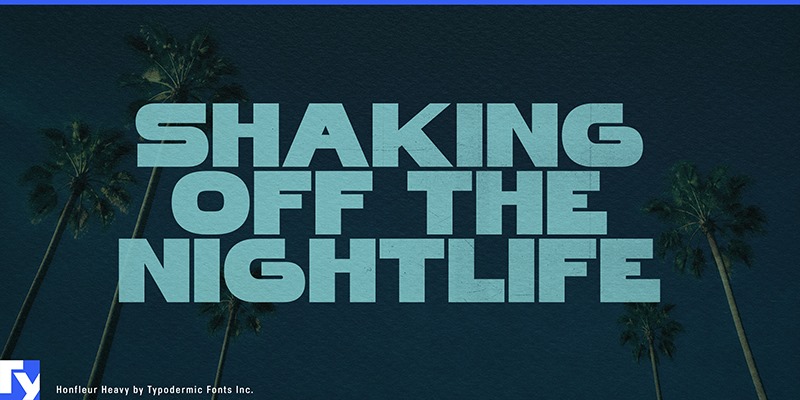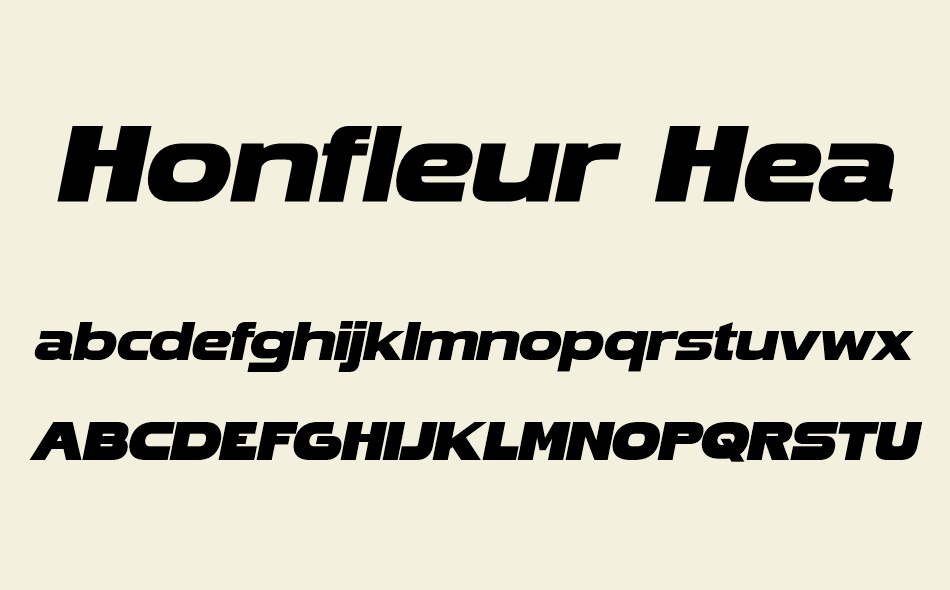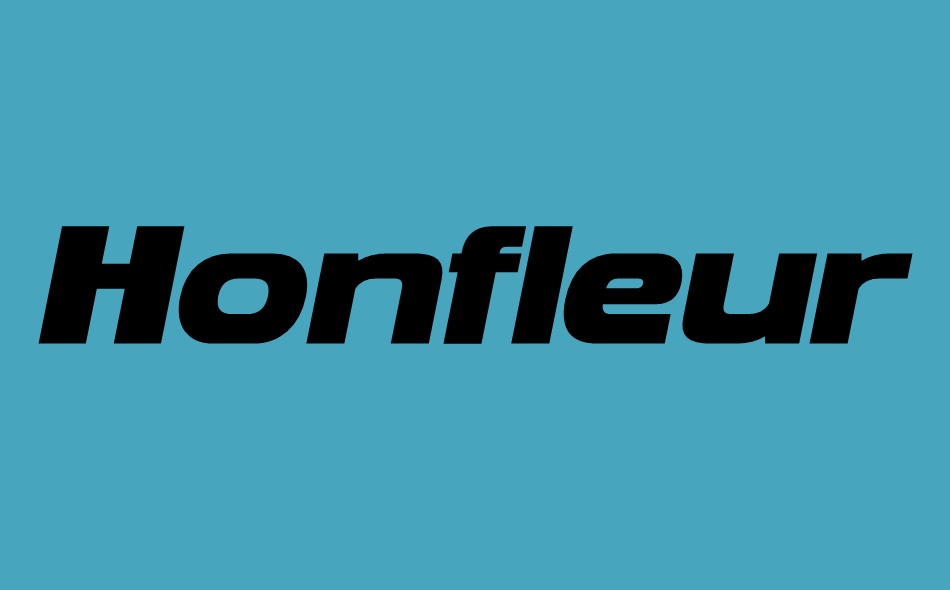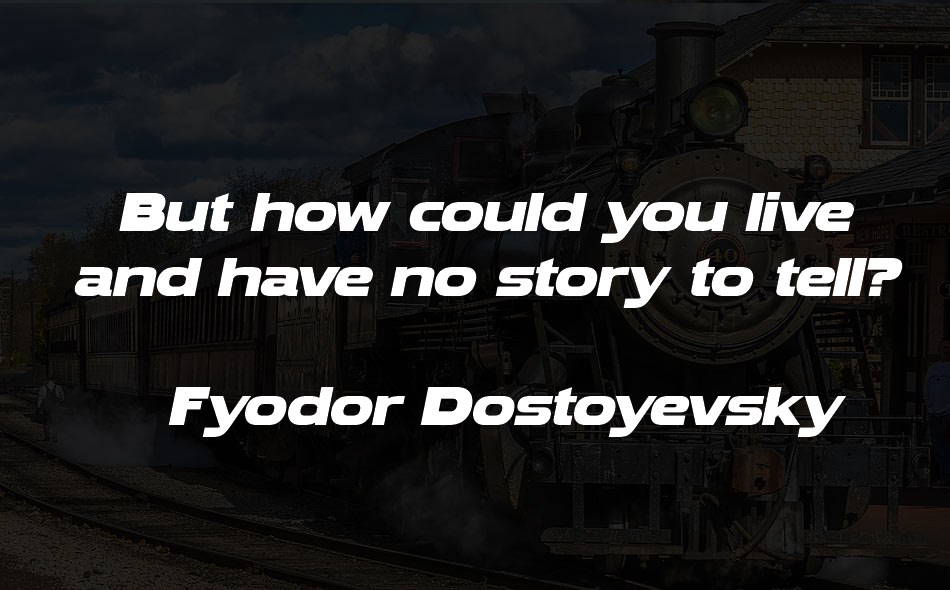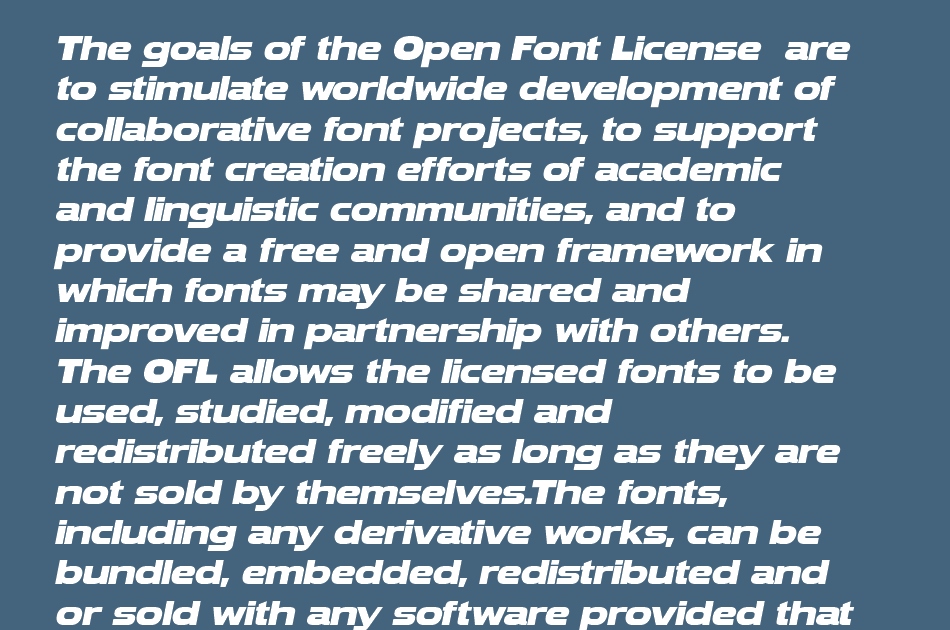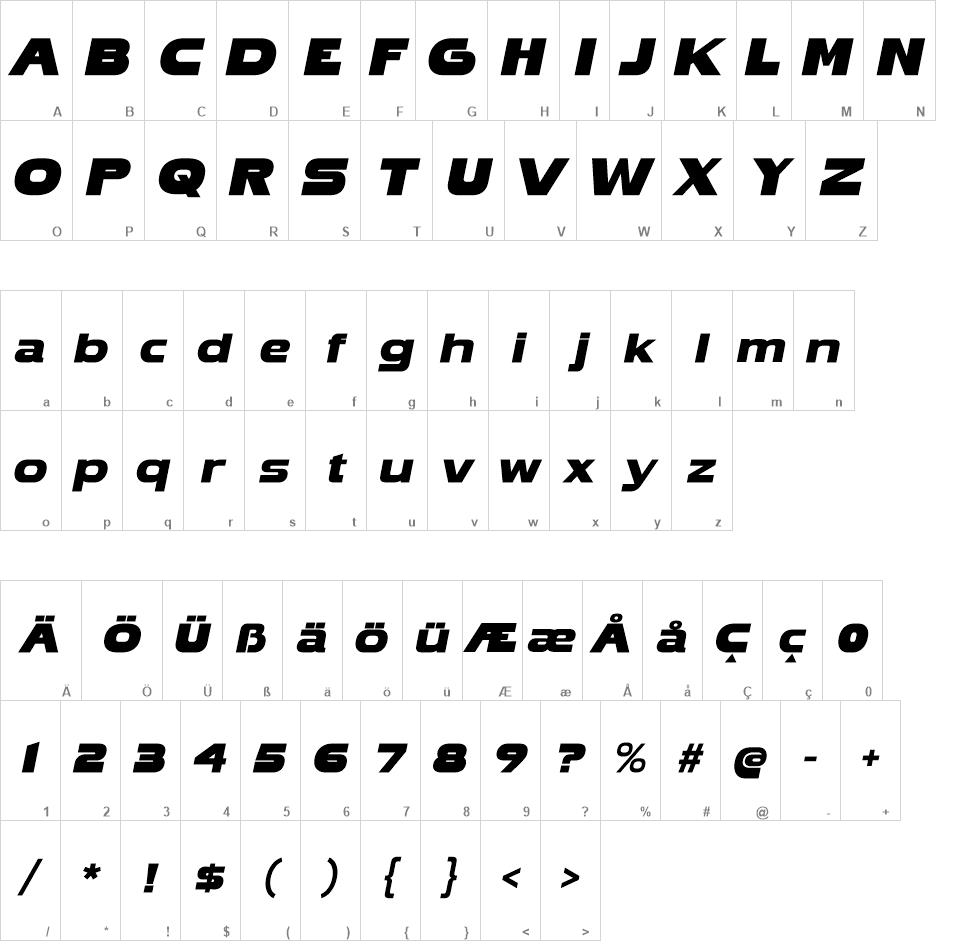
Honfleur font
Honfleur is a wide, geometric display typeface with a calm, confident presence. Inspired by 1930s elegance, it combines clean structure with softened corners and open forms, giving it a refined, modern feel without stiffness.
Designed for impact without aggression, Honfleur works beautifully in headlines, signage, packaging, and editorial layoutsanywhere you want sophistication with breathing room.